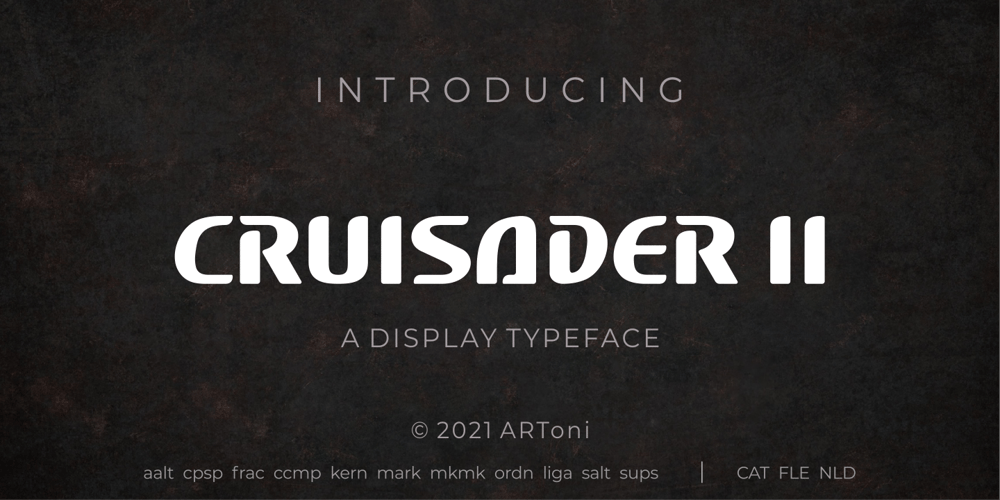
Cruisader II
Cruisader II font
Cruisader II Font Family was designed by Anthonie Van Hayu and published by ARToni. Cruisader II contains 1 styles and family package options. Cruisader II is a cool, fresh and bold display font. This font reads as strong, confident, and dynamic and can add tons of nostalgic character to your designs.